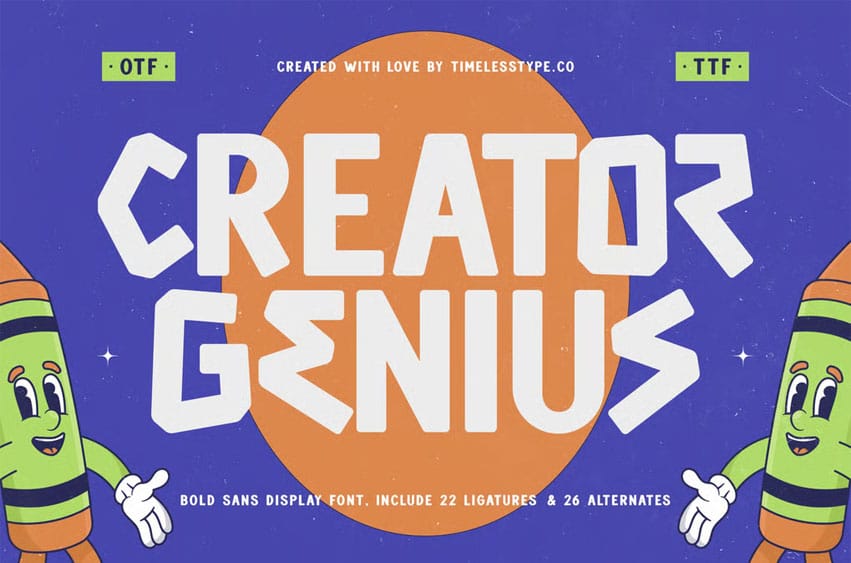
Creator Genius Font is a bold sans serif display font designed for creative minds and playful projects. Featuring 22 ligatures and 26 alternates, this typeface brings strong geometric shapes and quirky character details, perfect for posters, packaging, comics, and branding that need bold impact and a fun personality.
With its clean yet energetic structure, Creator Genius strikes a balance between retro comic vibes and modern design precision. Ideal for children’s themes, educational media, and youthful visual identities, this font adds confidence and creativity to every design.